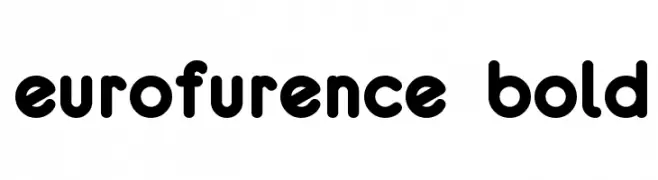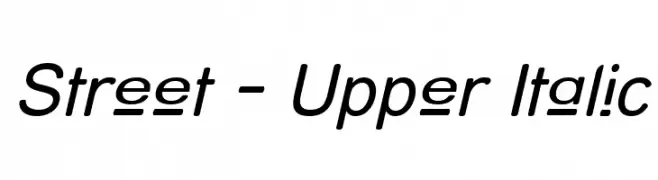
A sleek, modern italic sans-serif font with smooth curves and clean lines.
A bold, clean sans-serif font with smooth curves and uniform strokes.
A modern italic font with dynamic curves and a sleek, energetic style.
A modern, expanded sans-serif font with smooth curves and a bold presence.
A modern, expanded italic font with smooth curves and a dynamic appearance.
A modern, italic font with smooth curves and a dynamic slant.
A sleek, elegant italic font with smooth curves and a modern aesthetic.
A bold, rounded font with smooth curves and a modern, friendly appearance.
A sleek, modern, light italic font with elegant curves and minimal contrast.